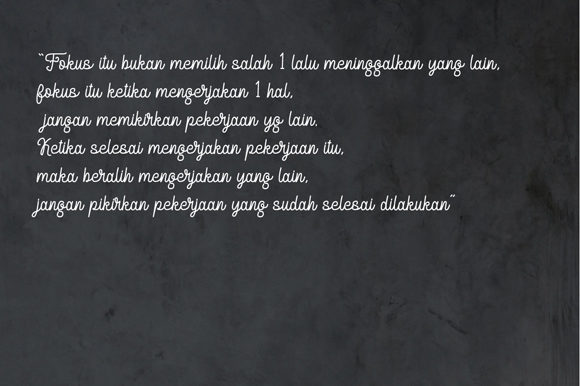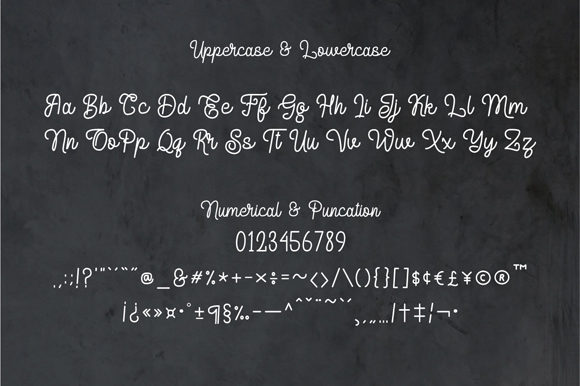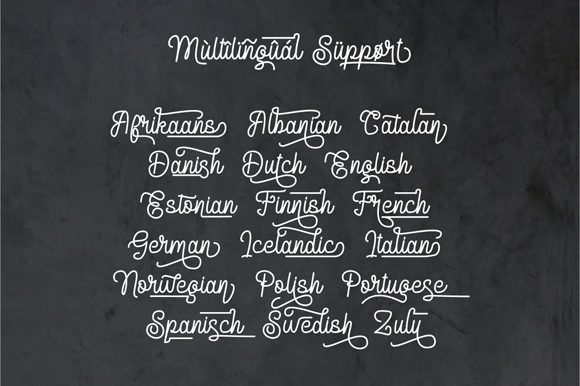
Introduction to Delponta Script Font
That’s exactly what happens when you discover the Delponta Script Font – a simple, yet elegant typeface that’s perfect for posters, logos, weddings, neon designs, watermarks, and much more! This high-quality design resource is a game-changer for any creative project, offering a unique blend of style and readability that’s sure to captivate your audience.
Key Features of Delponta Script Font
- High-quality design resource ideal for creative projects, including invitations, quotes, and social media graphics.
- Features a transparent background, allowing for seamless integration with any design or image.
- Unique, handwritten style with a touch of elegance, making it perfect for adding a personal touch to any design project.
Honest Review: Delponta Script Font
I recently had the chance to work with the Delponta Script Font, and I must say it’s been a game-changer for my design projects. As a designer, I’m always on the lookout for high-quality fonts that can elevate my work and make it stand out. The Delponta Script Font definitely delivers.
Here are some things that work well: ✨
- Unique and elegant design that adds a touch of sophistication to any project.
- High-quality vector format that makes it perfect for printing and digital use.
- Transparent background, making it easy to work with and customize.
However, there are a few limitations: ⚠️
- Limited character set, which might be a concern for designers working on longer creative projects.
- Not suitable for use in small font sizes, as the script design may become hard to read.
Overall, I’m impressed with the Delponta Script Font. It’s a fantastic design resource that can add a touch of elegance to any project. While it may have some limitations, the benefits far outweigh the drawbacks. I’d definitely recommend it to fellow designers looking for a high-quality, free font to use in their creative projects.
Common Use Cases for Delponta Script Font
The Delponta Script Font is perfect for a variety of creative projects, including wedding invitations, birthday cards, and social media graphics. Its elegant and sophisticated design makes it ideal for use in high-end branding and marketing materials.